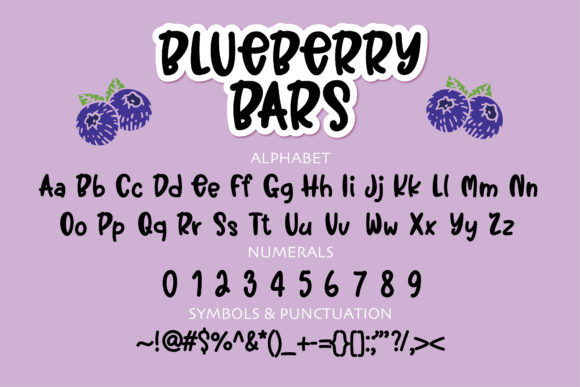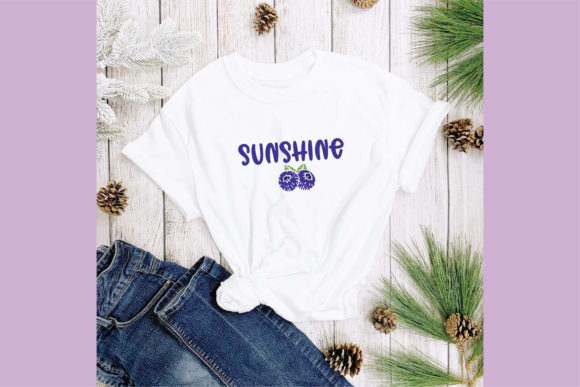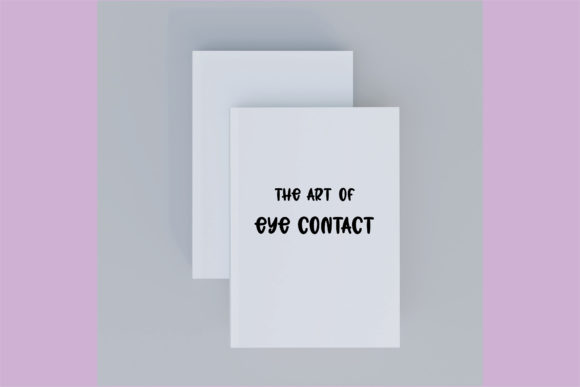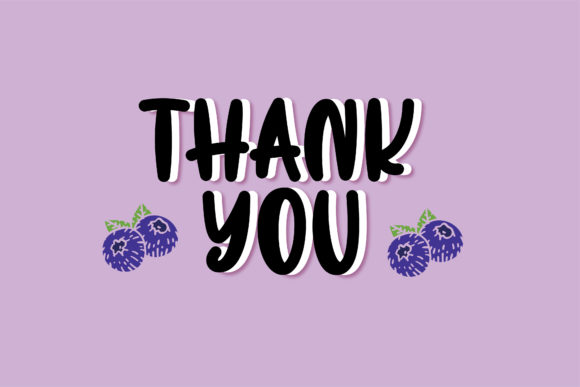
The Perfect Touch: Unlocking the Beauty of Blueberry Bars Font
Have you ever found yourself stuck in a creative rut, scrolling through font options for hours, searching for that perfect touch to elevate your design? I know I have. But then, like a breath of fresh air, you stumble upon a font that makes your heart skip a beat. For many designers, that font is Blueberry Bars. This charming handwritten font is more than just a pretty face – it’s a versatile and natural addition to any design.
Whether you’re crafting wedding invitations, designing quotes, or creating custom logos, Blueberry Bars Font adds a unique and personalized touch that sets your work apart. Its flexibility makes it an invaluable asset for designers, allowing you to experiment with different styles and themes without ever feeling limited. With Blueberry Bars Font, the possibilities are endless, and the results are nothing short of stunning.
Blueberry Bars Font Key Features
- Font Family: Blueberry Bars Font is a unique, hand-drawn script font designed to evoke a sense of whimsy and playfulness.
- Character Set: The font includes a wide range of characters, including uppercase and lowercase letters, numbers, punctuation, and special characters.
- Unique Characteristics: The font’s hand-drawn design and subtle imperfections give it a natural, organic feel, making it perfect for creative projects that require a touch of personality.
Designer Review: Blueberry Bars Font
When I first laid eyes on Blueberry Bars Font, I was immediately drawn to its playful, whimsical feel. ✨ The font’s rounded edges and soft curves evoke a sense of nostalgia, reminiscent of classic children’s books.
The font’s versatility is another standout feature. ✨ It works equally well for digital and print projects, from social media graphics to packaging design. The font’s consistent letter spacing and line height make it easy to read, even in smaller sizes.
- Rounded edges and soft curves give the font a playful feel
- Consistent letter spacing and line height make it easy to read
- Versatile for digital and print projects
- May not be suitable for formal or corporate projects
- Lack of bold and italic font styles may limit its use in certain contexts
- May not be as effective for text-heavy projects or long blocks of text
- ⚠️ Some characters may not be fully optimized for certain languages
Overall, I think Blueberry Bars Font is a great choice for designers looking to add a touch of whimsy to their projects. While it may have some limitations, its unique feel and versatility make it a valuable addition to any design toolkit.
1. Use the font in combination with other playful fonts to create a unique and eye-catching design.
2. Experiment with different font sizes and colors to add depth and interest to your design.
3. Use the font in headings and titles to draw attention and create visual hierarchy.
1. Food and beverage branding.
2. Children’s products and packaging.
3. Whimsical and playful marketing materials.